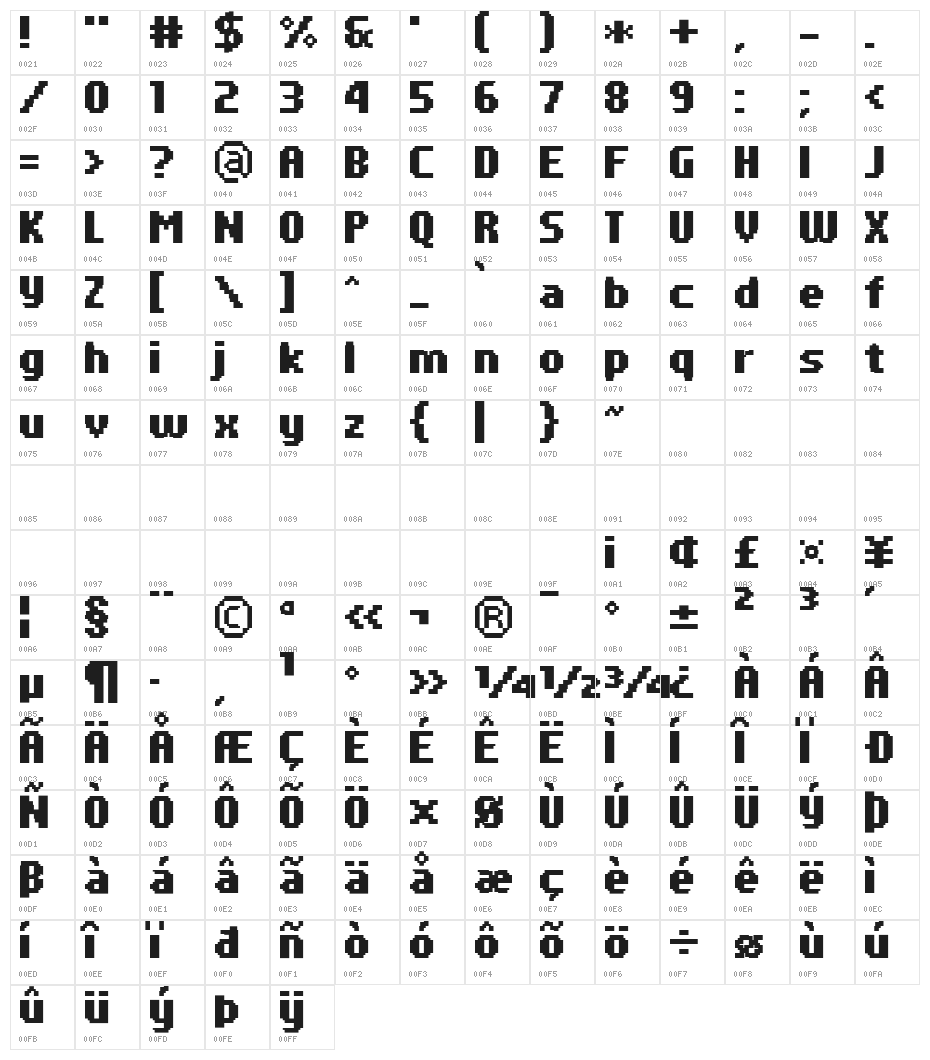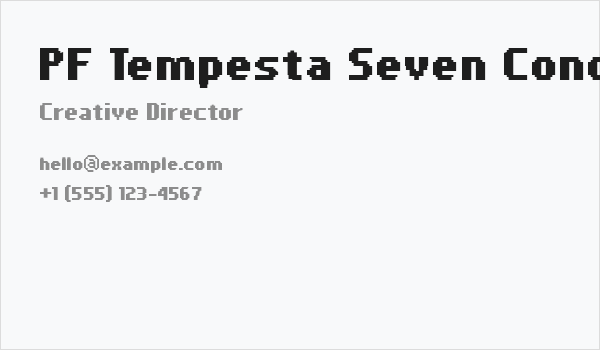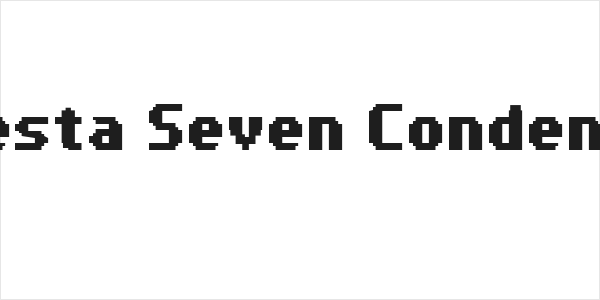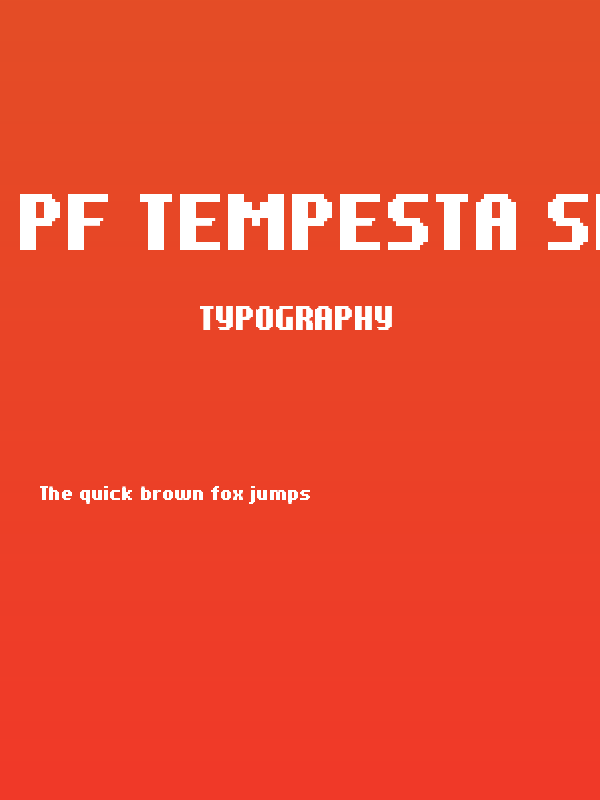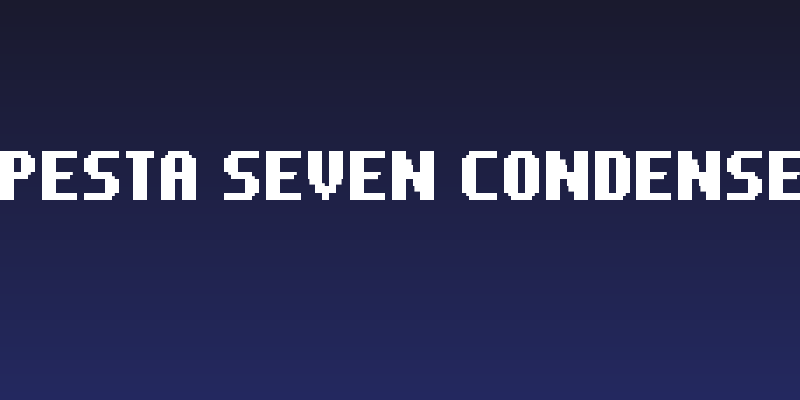
PF Tempesta Seven Condensed Bold Font
PF Tempesta Seven Condensed Bold Description
This font features a bold and condensed style with a distinct pixelated appearance, reminiscent of retro digital displays or early video game graphics. The characters are blocky and geometric, with consistent stroke widths that give it a uniform look. The uppercase and lowercase letters maintain a similar width, enhancing the condensed nature of the font. The numerals and special characters follow the same design principles, ensuring a cohesive appearance across all glyphs. This font is highly legible and stands out due to its unique style, making it suitable for projects that require a vintage or digital aesthetic.
| Proposed Projects | Ideal for video game design, retro-themed posters, digital art projects, and any creative work that requires a nostalgic or tech-inspired look. |